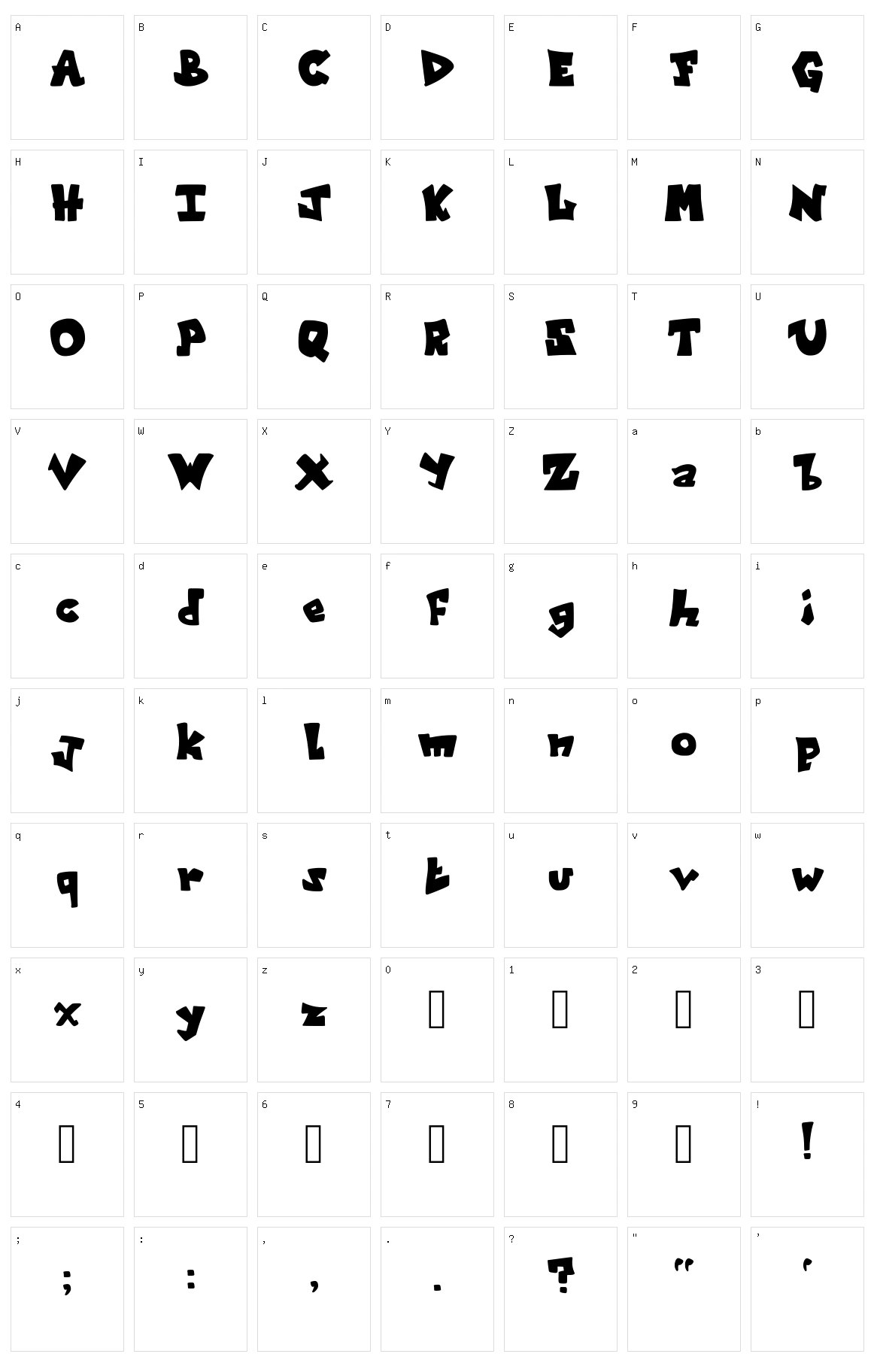
The free font Augmented Funk is carefully designed by PoppyNull, showcasing a thoughtful balance of creativity and usability and falls under the Cartoon font style. When you download the ZIP file, it contains only 12.08 KB of font files, making it lightweight and quick to download. Please review the license details below to understand permitted usage and distribution rights. If license information is not available, we recommend using this font for personal projects only or contacting the author directly for commercial usage permissions.